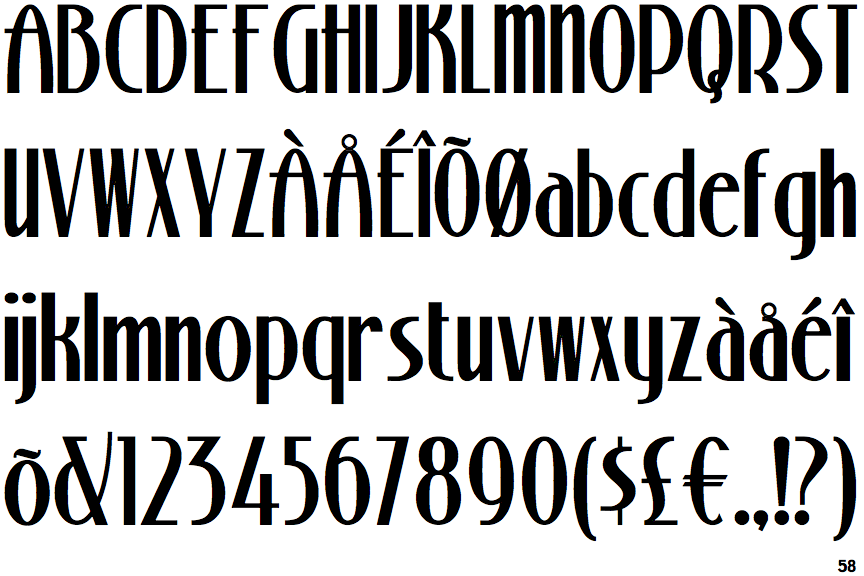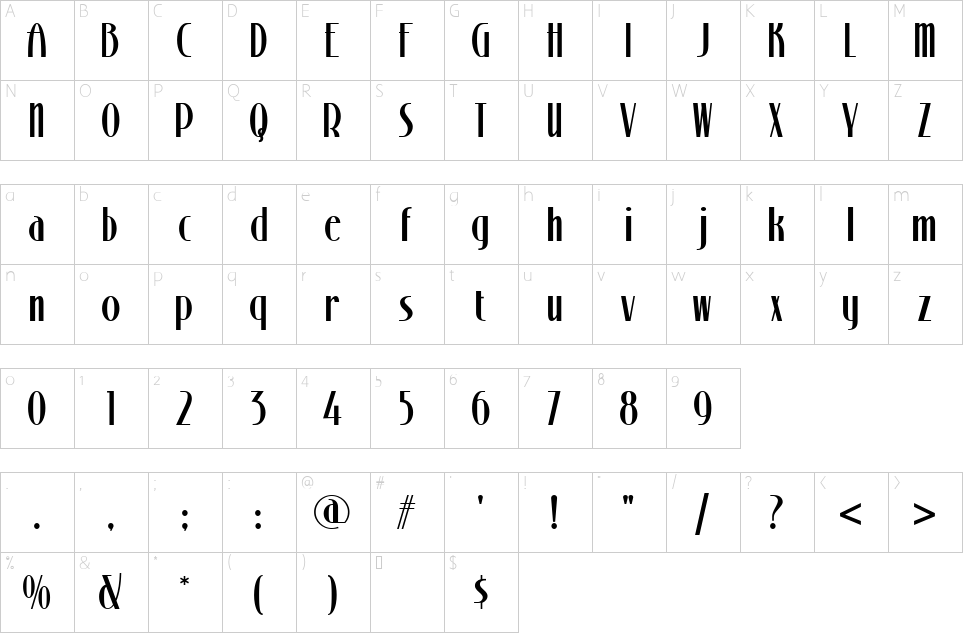
What Is Stone Island Font . Known for its innovative approach to fabrication through a range of dyeing techniques and surface treatments, italian luxury men's apparel and. According to a wiki, stone island is an italian premium men's apparel brand from ravarino famous for its compass patch that. It's a standard font of windows. Just upload an image of the font you need identified, and the tool will do the job for you. They're arguably the og of. They're a weird brand with an amazing history. In a nutshell — stone island is like the ralph lauren of techwear. Download stony island nf font family · free for commercial use · an adaptation of a font called chicago modern, designed by lettering artist alf. Whatthefont works by searching through its. And good luck for the future of your country. Use times new roman bold.
Just upload an image of the font you need identified, and the tool will do the job for you. Use times new roman bold. Download stony island nf font family · free for commercial use · an adaptation of a font called chicago modern, designed by lettering artist alf. And good luck for the future of your country. They're arguably the og of. According to a wiki, stone island is an italian premium men's apparel brand from ravarino famous for its compass patch that. They're a weird brand with an amazing history. It's a standard font of windows. Known for its innovative approach to fabrication through a range of dyeing techniques and surface treatments, italian luxury men's apparel and. Whatthefont works by searching through its.
What Is Stone Island Font Use times new roman bold. It's a standard font of windows. In a nutshell — stone island is like the ralph lauren of techwear. Use times new roman bold. According to a wiki, stone island is an italian premium men's apparel brand from ravarino famous for its compass patch that. They're a weird brand with an amazing history. Just upload an image of the font you need identified, and the tool will do the job for you. Known for its innovative approach to fabrication through a range of dyeing techniques and surface treatments, italian luxury men's apparel and. Download stony island nf font family · free for commercial use · an adaptation of a font called chicago modern, designed by lettering artist alf. They're arguably the og of. And good luck for the future of your country. Whatthefont works by searching through its.
Stone Island Handwritten Font OTF Font Font Download Retro Etsy What Is Stone Island Font Download stony island nf font family · free for commercial use · an adaptation of a font called chicago modern, designed by lettering artist alf. Whatthefont works by searching through its. They're arguably the og of. They're a weird brand with an amazing history. In a nutshell — stone island is like the ralph lauren of techwear. Known for its. What Is Stone Island Font.
Stony Island Font by Freebies · Creative Fabrica What Is Stone Island Font Just upload an image of the font you need identified, and the tool will do the job for you. Known for its innovative approach to fabrication through a range of dyeing techniques and surface treatments, italian luxury men's apparel and. It's a standard font of windows. In a nutshell — stone island is like the ralph lauren of techwear. They're. What Is Stone Island Font.
Stony Island NF Font Download What Is Stone Island Font Use times new roman bold. And good luck for the future of your country. Known for its innovative approach to fabrication through a range of dyeing techniques and surface treatments, italian luxury men's apparel and. They're a weird brand with an amazing history. They're arguably the og of. It's a standard font of windows. According to a wiki, stone island. What Is Stone Island Font.
Stony Island Font Download Fonts4Free What Is Stone Island Font Known for its innovative approach to fabrication through a range of dyeing techniques and surface treatments, italian luxury men's apparel and. Just upload an image of the font you need identified, and the tool will do the job for you. It's a standard font of windows. Whatthefont works by searching through its. They're a weird brand with an amazing history.. What Is Stone Island Font.
Jual STONE ISLAND FONT LOGO Shopee Indonesia What Is Stone Island Font According to a wiki, stone island is an italian premium men's apparel brand from ravarino famous for its compass patch that. Just upload an image of the font you need identified, and the tool will do the job for you. Whatthefont works by searching through its. Known for its innovative approach to fabrication through a range of dyeing techniques and. What Is Stone Island Font.
Stone Island Graphic Embroidered Logo Knit Black END. What Is Stone Island Font They're a weird brand with an amazing history. It's a standard font of windows. Use times new roman bold. Download stony island nf font family · free for commercial use · an adaptation of a font called chicago modern, designed by lettering artist alf. They're arguably the og of. Known for its innovative approach to fabrication through a range of. What Is Stone Island Font.
The Ultimate Guide To The Stone Island Logo STONE ISLAND ARCHIVE What Is Stone Island Font Just upload an image of the font you need identified, and the tool will do the job for you. Use times new roman bold. Known for its innovative approach to fabrication through a range of dyeing techniques and surface treatments, italian luxury men's apparel and. They're a weird brand with an amazing history. Whatthefont works by searching through its. And. What Is Stone Island Font.